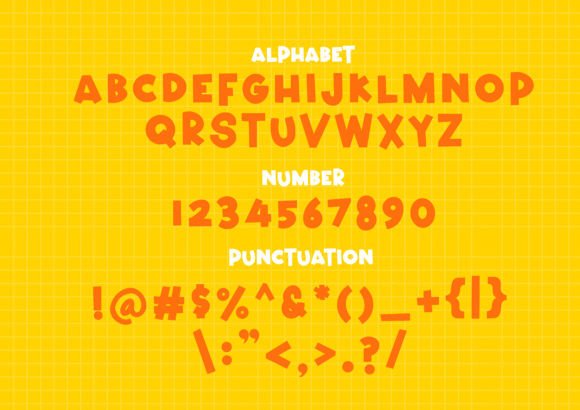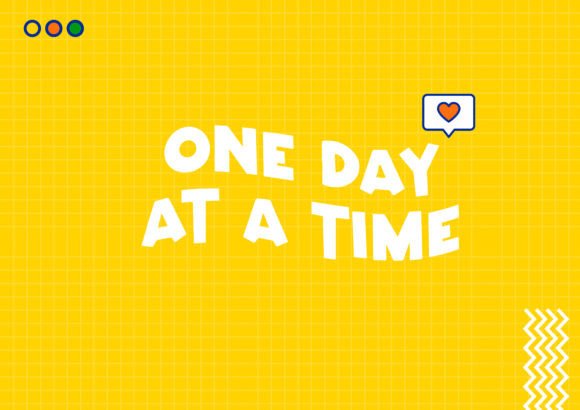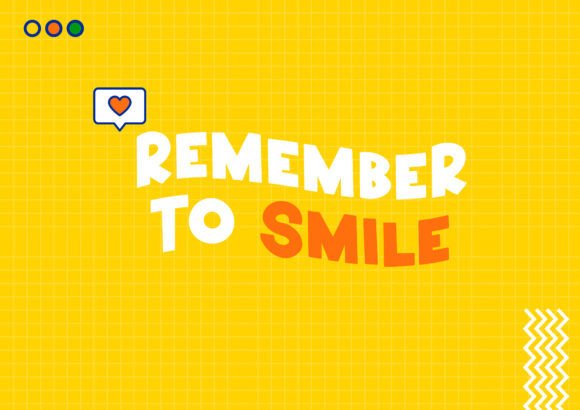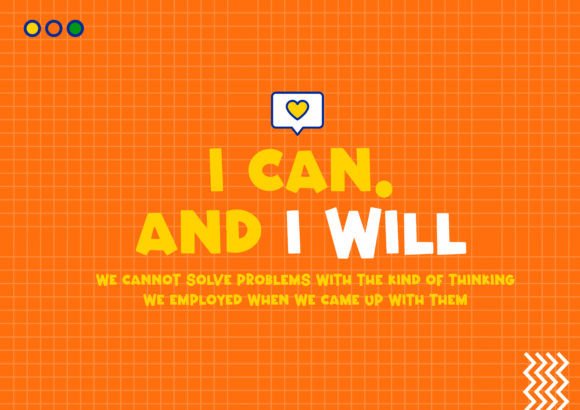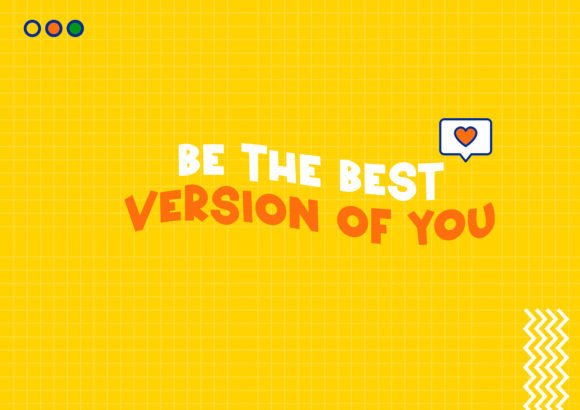
Introduction to Justice Story Font
Justice Story is a whimsical and bold display font.
It has a fun and cool vibe, making it great for crafting, titles, displays, and more This original look will appeal to a wide range of crafty ideas, from letterheads and titles to stationery.
Key Features of Justice Story Font
Why Choose Justice Story Font?